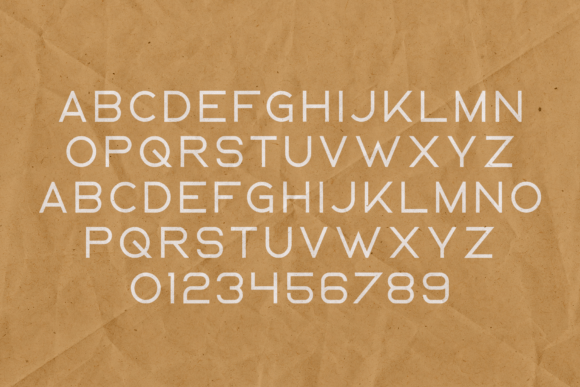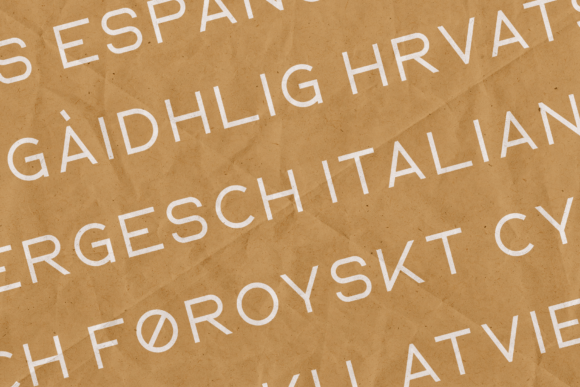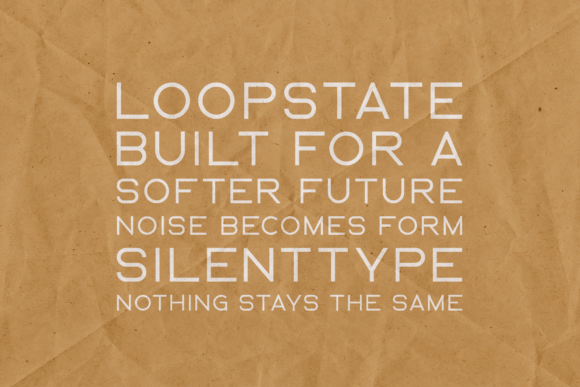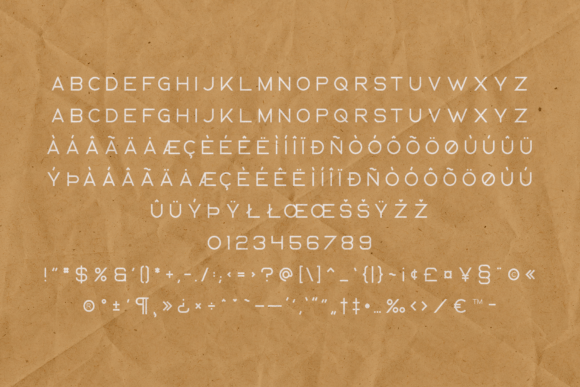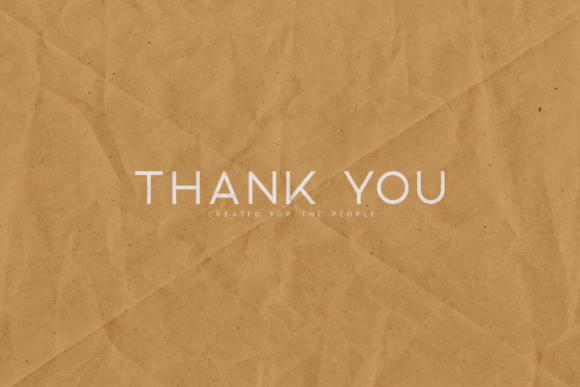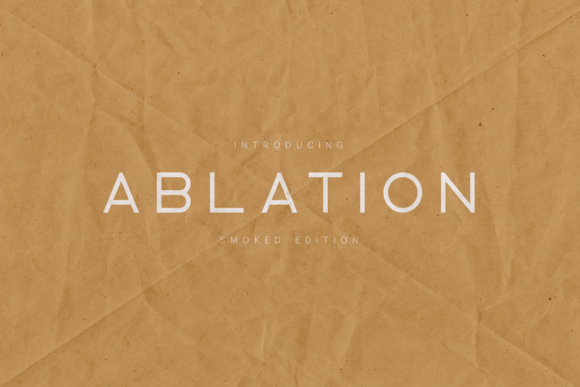
Ablation Smoked Edition Font: A Modern Sans Serif with a Subtle Textured Finish
In the world of typography, fonts play a crucial role in conveying messages, expressing emotions, and creating visual identities. For designers and crafters, finding the perfect font that balances precision with atmosphere can be a daunting task. However, with the Ablation Smoked Edition font, you can achieve a calm yet expressive visual tone that elevates your designs. In this article, we’ll explore the features, benefits, and uses of this modern sans serif font with a subtle textured finish.
Inspired by Erosion, Smoke, and Organic Wear
Ablation – Smoked Edition is a font that draws inspiration from the natural world. Its subtle textured finish is reminiscent of erosion, smoke, and organic wear, giving it a unique and distinctive look. The clean geometric letterforms are softened by a distressed surface, creating a balance between precision and atmosphere. This font is perfect for designers who want to add a touch of modernity and character to their designs.
Clean, Geometric Letterforms with a Distressed Surface
One of the standout features of Ablation – Smoked Edition is its clean, geometric letterforms. The font boasts a modern sans serif design that exudes simplicity and elegance. However, what sets it apart is its distressed surface, which adds a layer of texture and tactility to the font. This subtle texture adds depth to the font without overpowering its readability, making it versatile across both digital and print applications.
Ideal for Contemporary Branding and Editorial Use
Ablation – Smoked Edition is designed for contemporary branding and editorial use. Its understated texture and modern design make it an ideal choice for a wide range of applications, including posters, headlines, packaging, magazines, lifestyle branding, quotes, websites, and minimalist graphic design projects. Whether you’re working on a digital project or a print project, this font is sure to deliver.
Extensive Multilingual Support and Character Set
The Ablation – Smoked Edition font includes an extensive character set, featuring uppercase and lowercase letters, numerals, punctuation, and extensive multilingual support. This means that you can use the font to create content for a global audience, without worrying about language limitations.
Made for Designers Who Want Modern Typography with Character
Ablation – Smoked Edition is made for designers who want modern typography with character. The font’s clean, quiet design is shaped by texture, giving it a unique and distinctive look. If you’re looking for a font that adds a touch of sophistication and elegance to your designs, look no further than Ablation – Smoked Edition.
Benefits of Using Ablation Smoked Edition Font
- Unique and distinctive look: The font’s subtle textured finish and distressed surface give it a unique and distinctive look that sets it apart from other fonts.
- Versatile across digital and print applications: The font’s understated texture and modern design make it versatile across both digital and print applications.
- Extensive multilingual support: The font includes extensive multilingual support, making it ideal for creating content for a global audience.
In conclusion, the Ablation Smoked Edition font is a modern sans serif font with a subtle textured finish that is perfect for designers and crafters. Its clean geometric letterforms, distressed surface, and extensive multilingual support make it an ideal choice for a wide range of applications. Whether you’re working on a digital project or a print project, this font is sure to deliver. With its unique and distinctive look, versatility, and seamless integration with design software, Ablation – Smoked Edition is a font that is sure to elevate your designs.